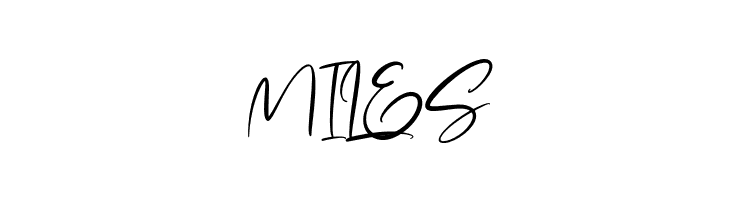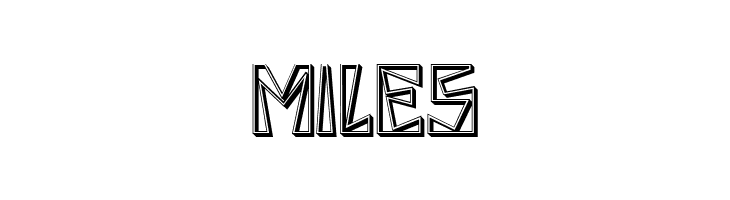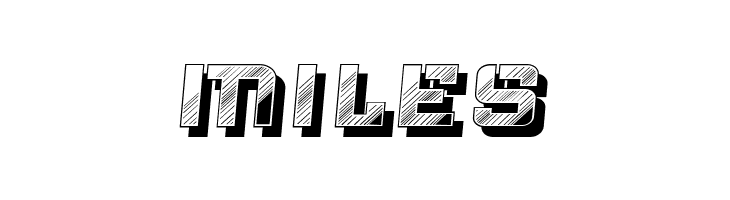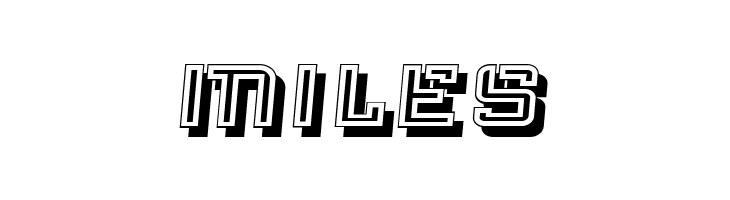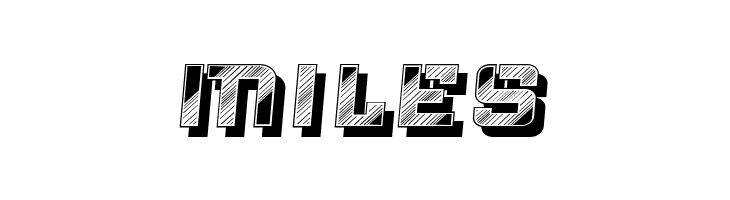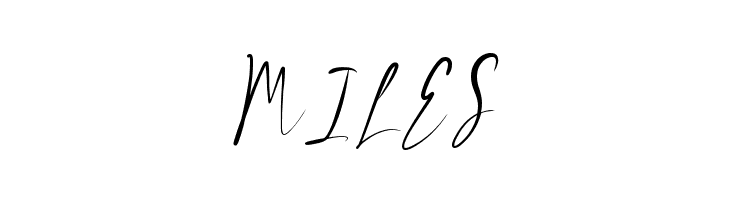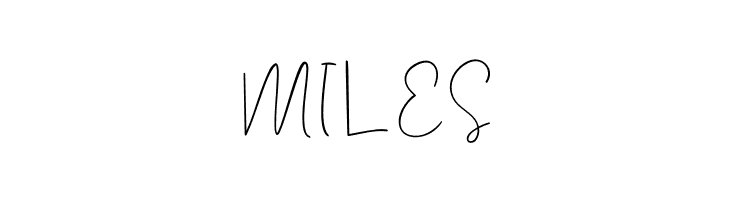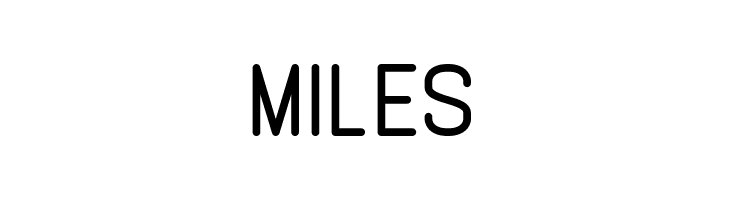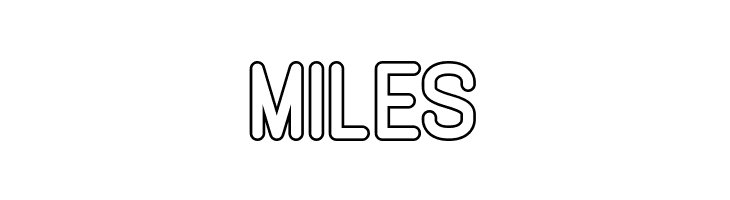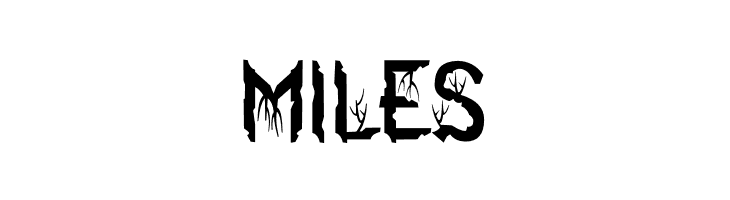
A modern sans-serif font with geometric shapes and uniform strokes.
A bold, geometric font with strong, blocky letterforms.
A bold, condensed font with a geometric and modern style.
Bold, condensed, and oblique font with a modern and dynamic style.
A bold, expanded font with uniform strokes and a modern, impactful style.
Bold, expanded, and oblique font with a modern and dynamic style.
A bold, oblique font with strong, angular lines and a dynamic slant.
An eerie, nature-inspired font with branch-like details.
A bold, jagged font with sharp, irregular edges for a dynamic look.
Bold, blocky font with a modern, assertive style.
A bold, playful font with dynamic curves and a modern calligraphic style.
A modern, playful font with rounded characters and unique design elements.
A geometric, futuristic outlined font with a technical and modern appearance.
An expressive, brush-like font with dynamic, irregular strokes.
A pixelated, grid-based font reminiscent of retro digital displays.
A bold, angular font with sharp, jagged edges and a geometric style.
A bold, geometric font with a three-dimensional, angular design.
A bold, dynamic font with a 3D effect and sharp angles.
A bold, 3D decorative font with striped patterns and shadow effects.
A bold, 3D font with a shiny, textured appearance and shadow effects.
A playful, rounded font with a bold, handwritten style.
A bold, modern font with uniform thickness and strong presence.
A bold, rounded sans-serif font with smooth curves and a modern aesthetic.
A bold, modern sans-serif font with rounded edges and uniform stroke width.
A modern, geometric outline sans-serif font with consistent stroke thickness.
A modern, outline-style font with bold, uniform lines and geometric shapes.
A modern, geometric sans-serif font with thin strokes and rounded edges.
A modern, thin sans-serif font with geometric influences and rounded edges.
A lively, handwritten font with fluid and dynamic strokes.
A delicate, handwritten script font with elegant, flowing lines.
A dynamic and expressive script font with fluid, flowing letterforms.
A flowing, elegant script font with a natural handwritten style.
A dynamic, fluid script font with elegant, flowing strokes and a cursive appearance.